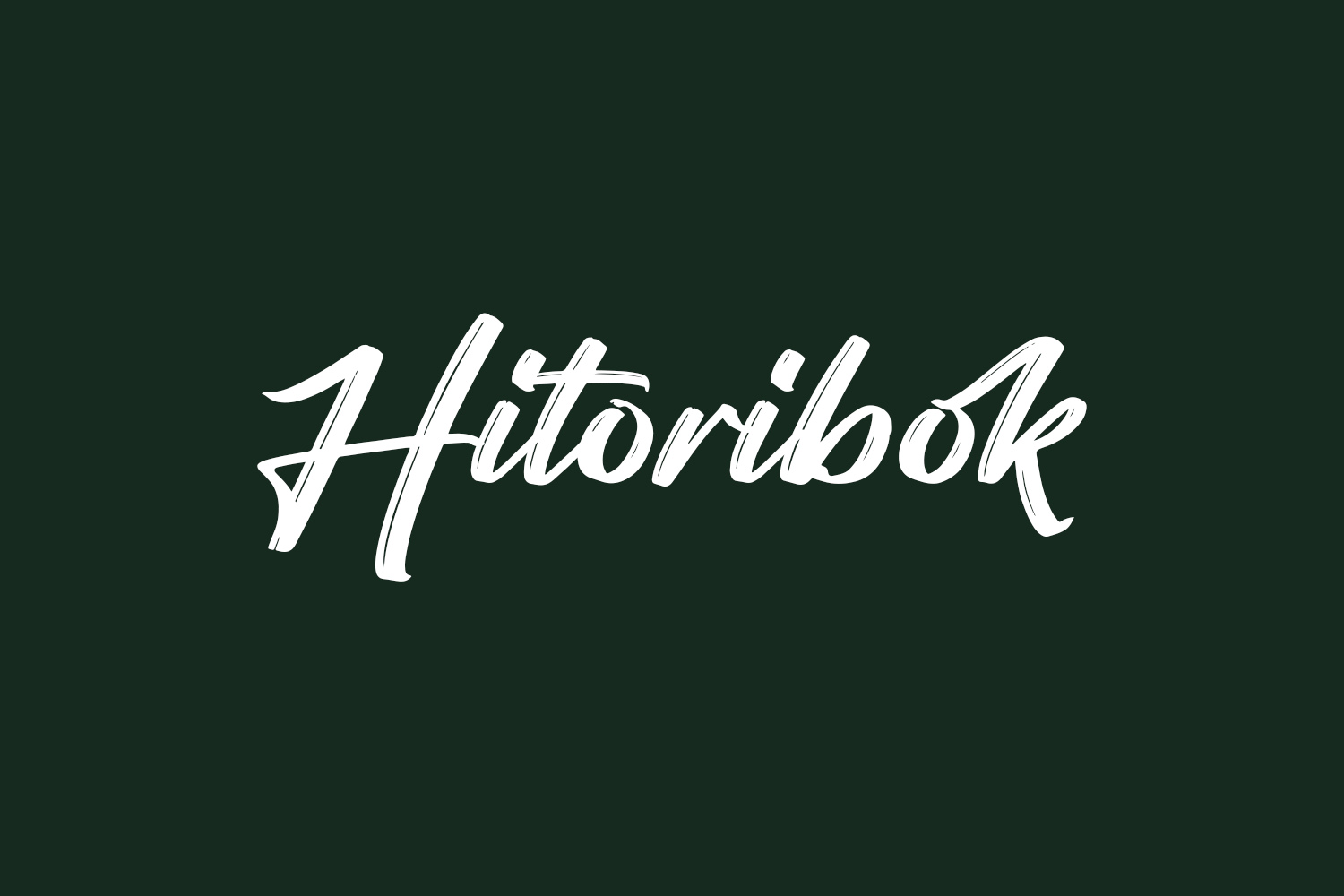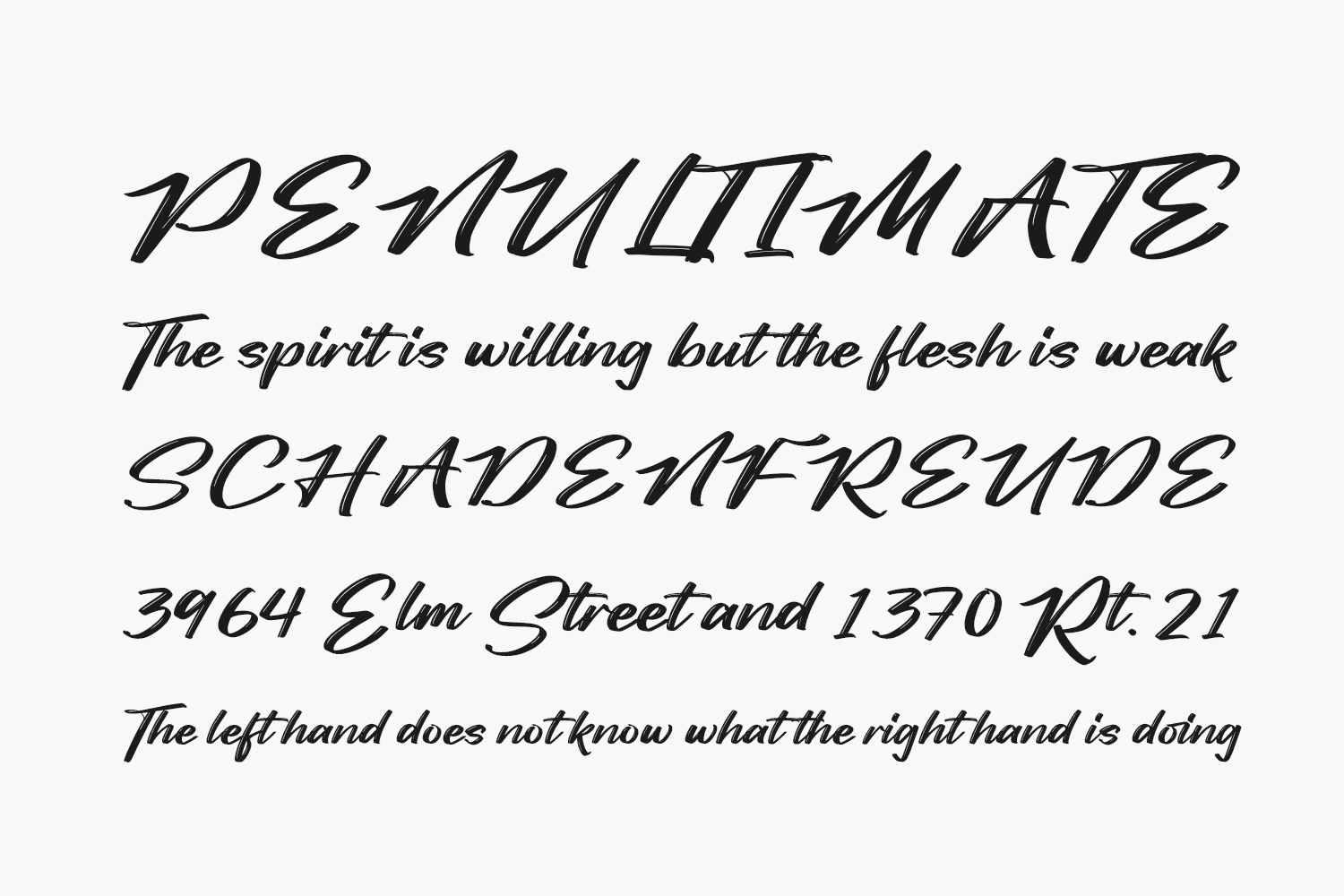
Hitoribok Free Font is a balanced and vintage-styled script typeface that embodies the essence of nostalgic reflection with emotional resonance. Its classic lettering adds a touch of elegance to any design, while its emotional depth gives your words a powerful impact. This font is perfect for creating designs that evoke feelings of nostalgia, longing, and reminiscence. Whether you’re crafting a heartfelt message, designing a meaningful invitation, or simply adding a touch of timeless style to your work, the font brings your designs to life with its emotional charm and vintage flair.